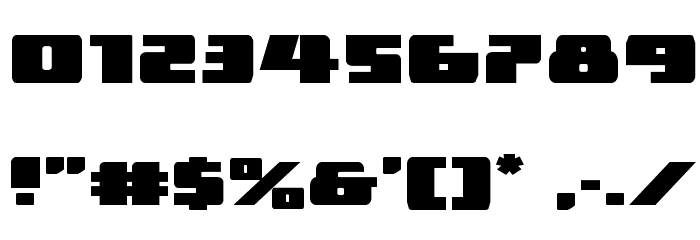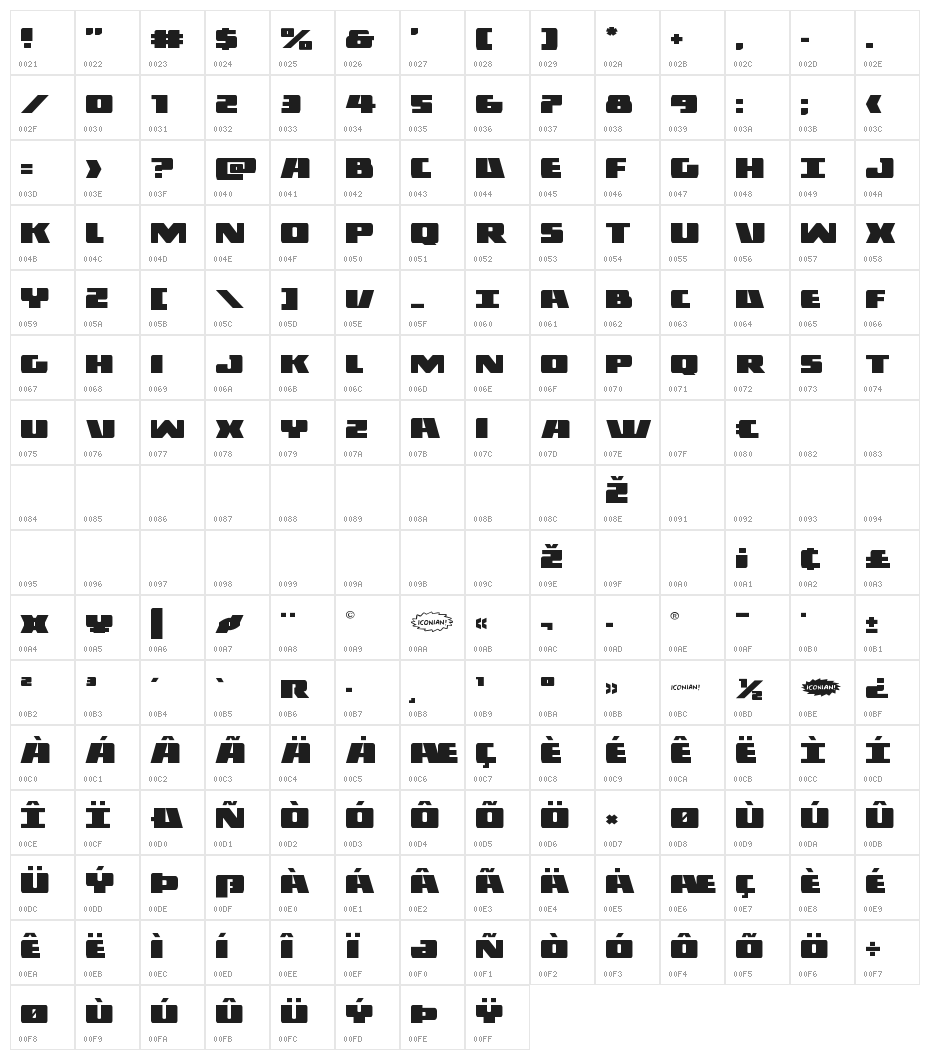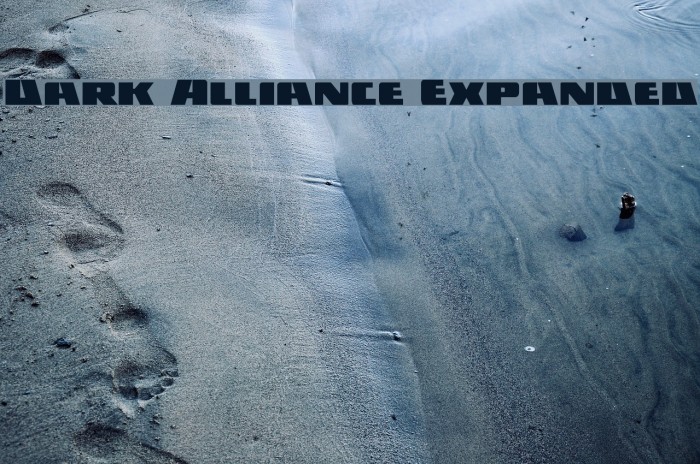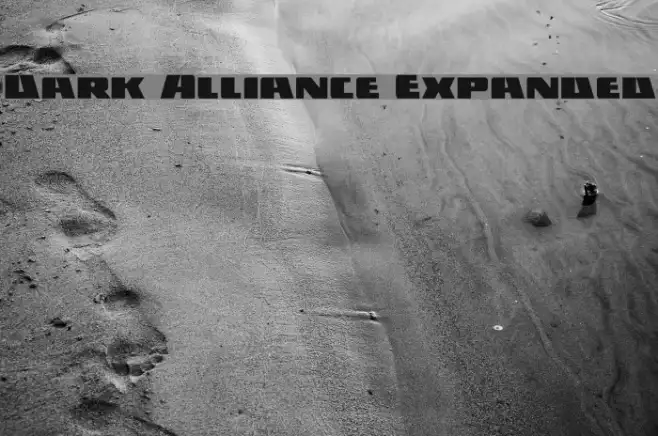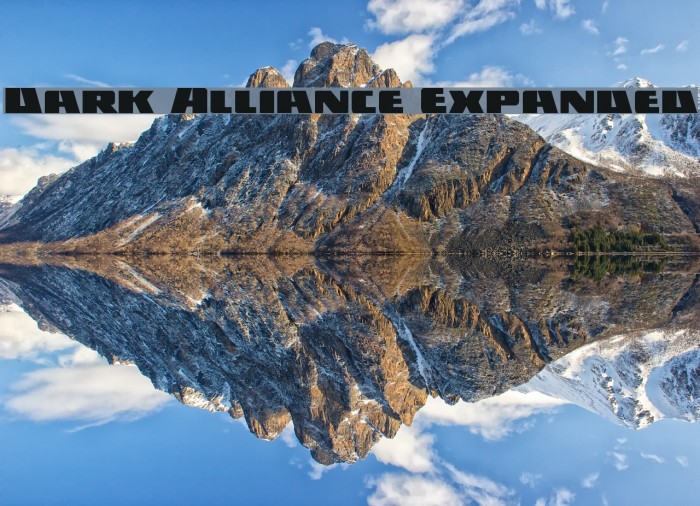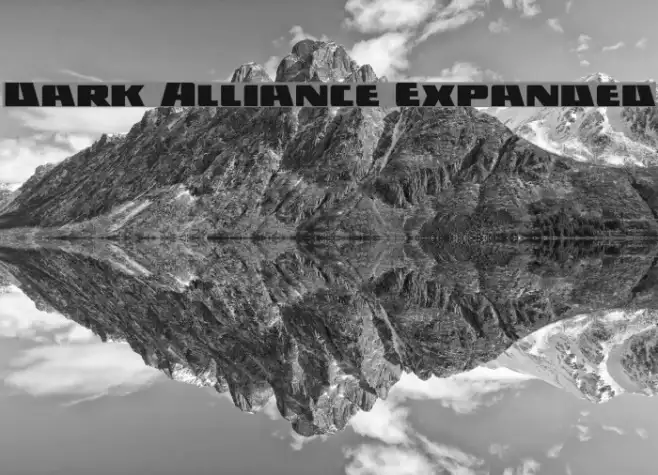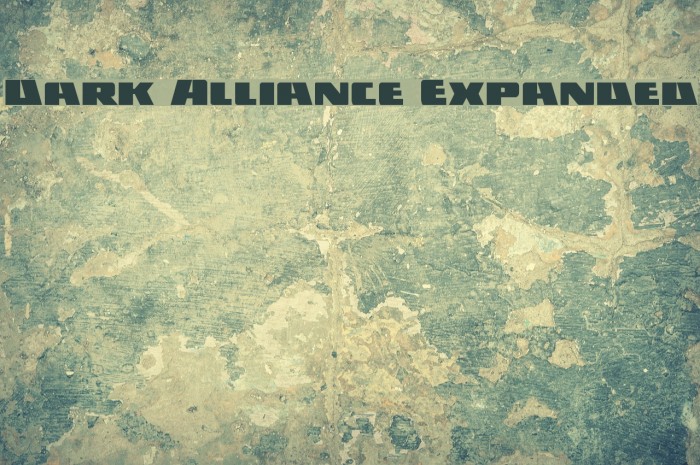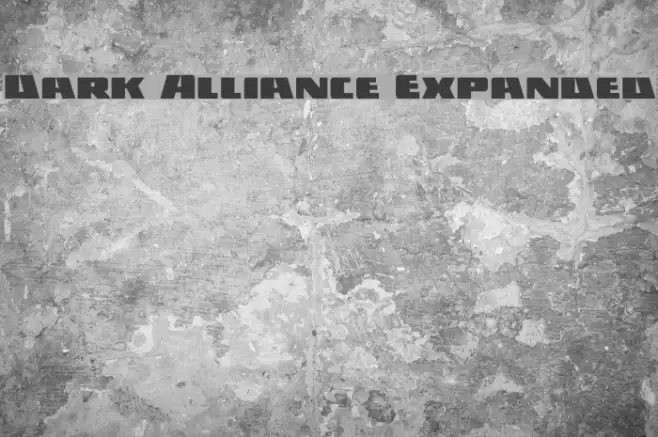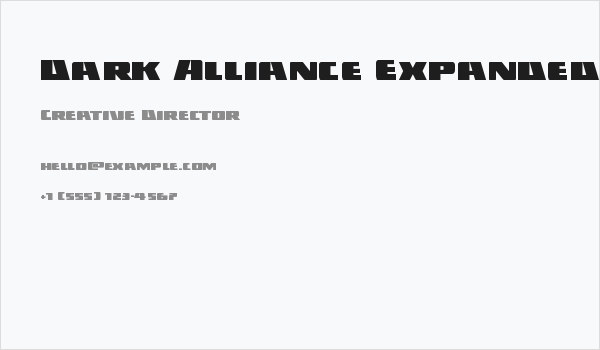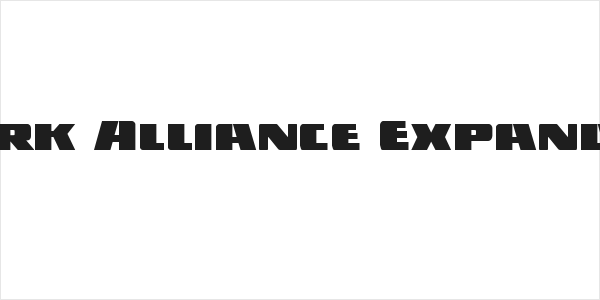
Dark Alliance Expanded Font
Dark Alliance Expanded Description
This font features a bold and striking design with a futuristic and geometric aesthetic. The characters are constructed with thick, block-like shapes that convey strength and stability. Each letter has a unique angular cut, adding a sense of dynamism and modernity. The numbers and special characters maintain this bold style, ensuring consistency across all glyphs. The font's strong presence makes it ideal for attention-grabbing headlines or titles. Its distinct style is both eye-catching and memorable, making it suitable for projects that require a bold statement.
| Proposed Projects | Ideal for video game titles, sci-fi movie posters, branding for tech companies, or any project requiring a strong, modern aesthetic. |